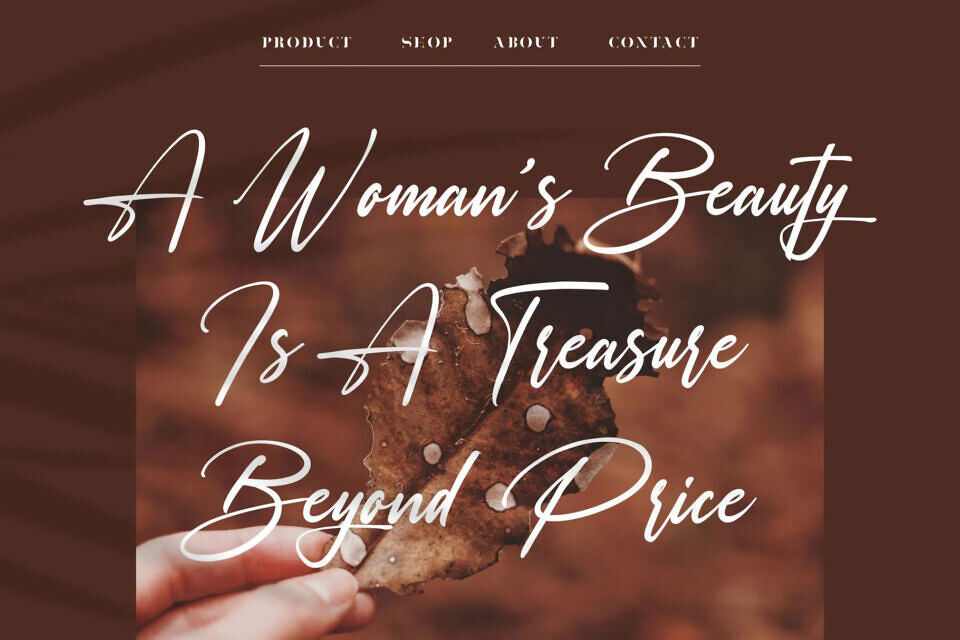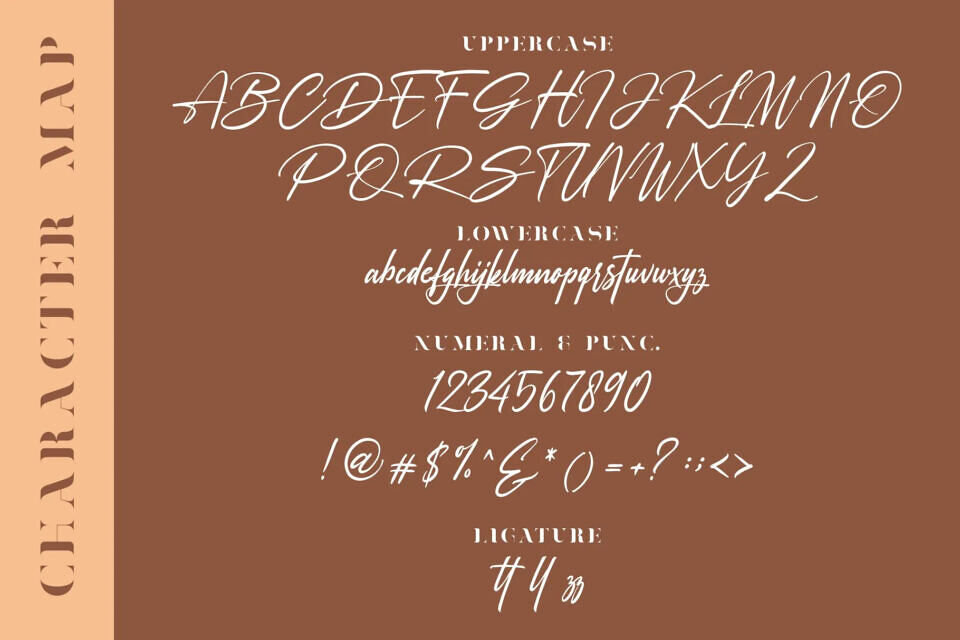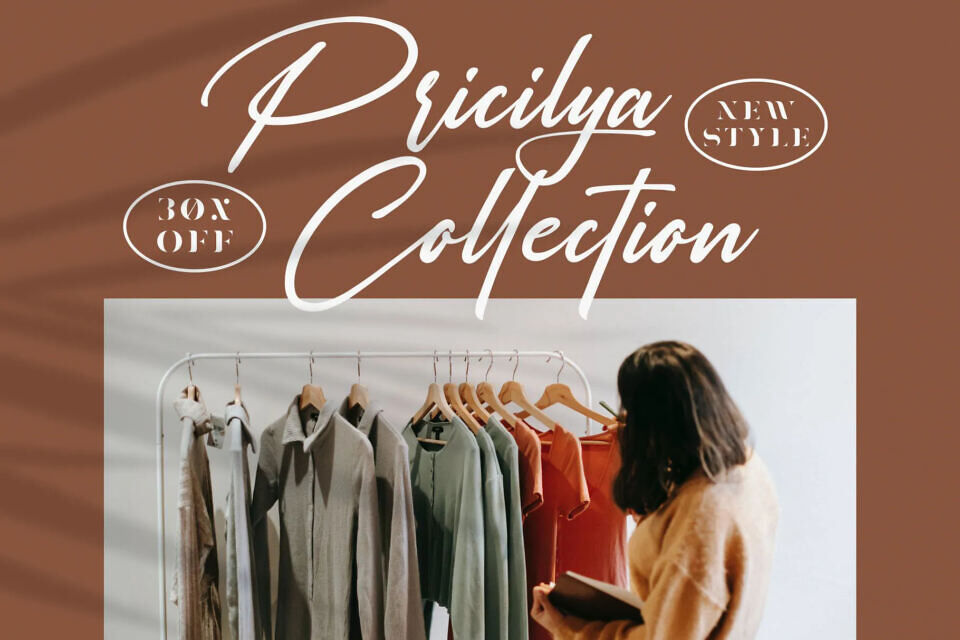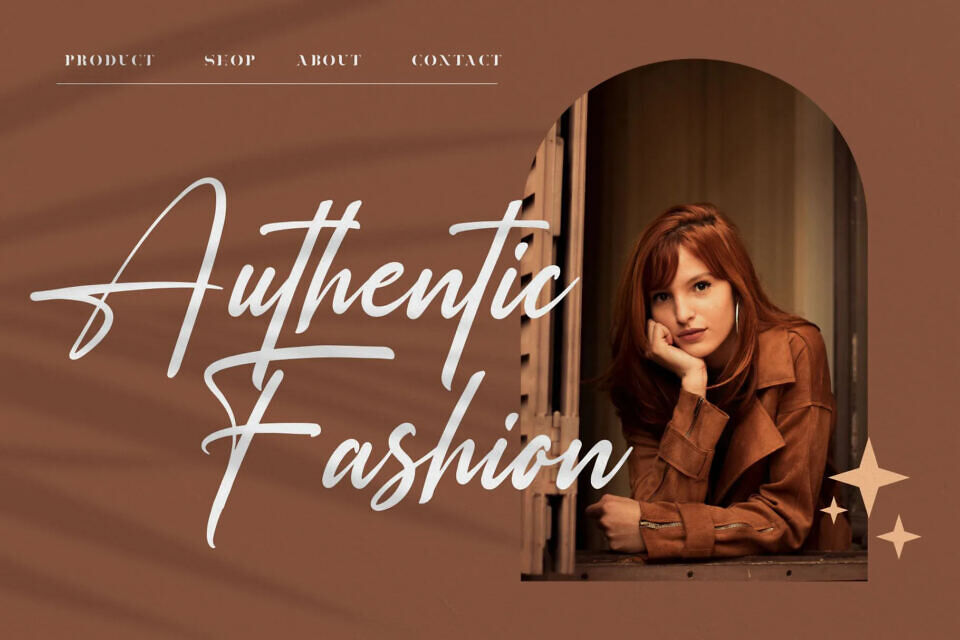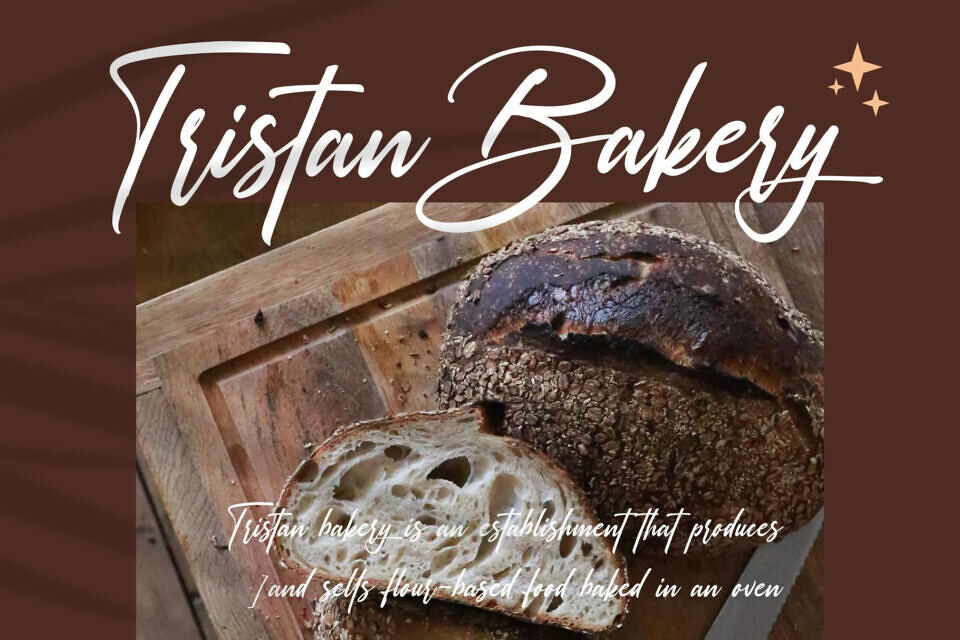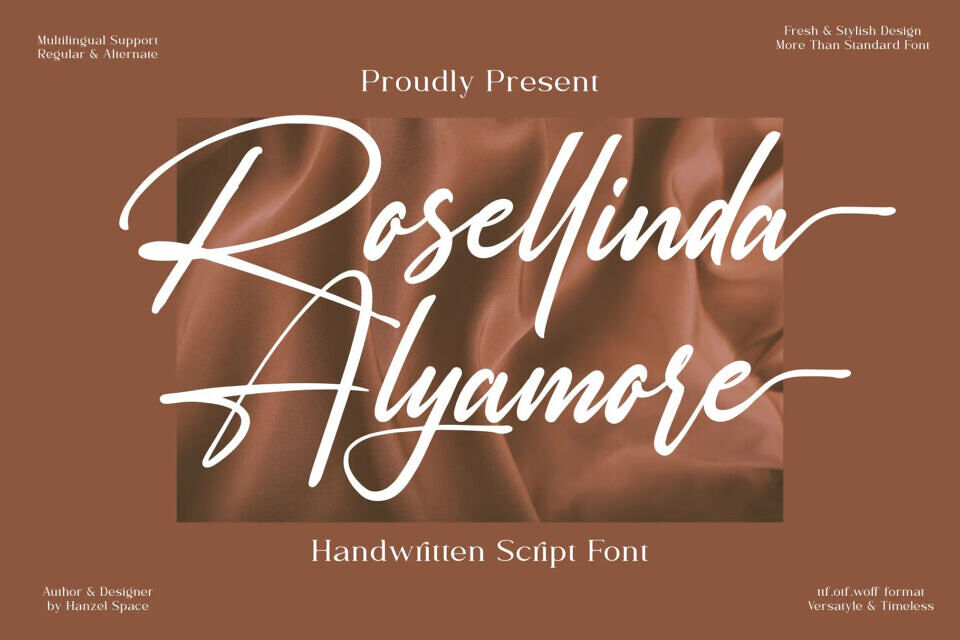
Rosellinda Alyamore Font
Rosellinda Alyamore is a refined handwritten typeface crafted with elegance and care. Ideal for creating signature logos, photography watermarks, wedding invitations, labels, magazines, and distinctive branding materials.
This font offers a complete set of graceful hand-drawn letters, numerals, punctuation, and stylish ligatures, delivering an authentic handwritten appearance. Designed with passion and artistry, Rosellinda Alyamore enhances any creative project with sophistication and modern charm.